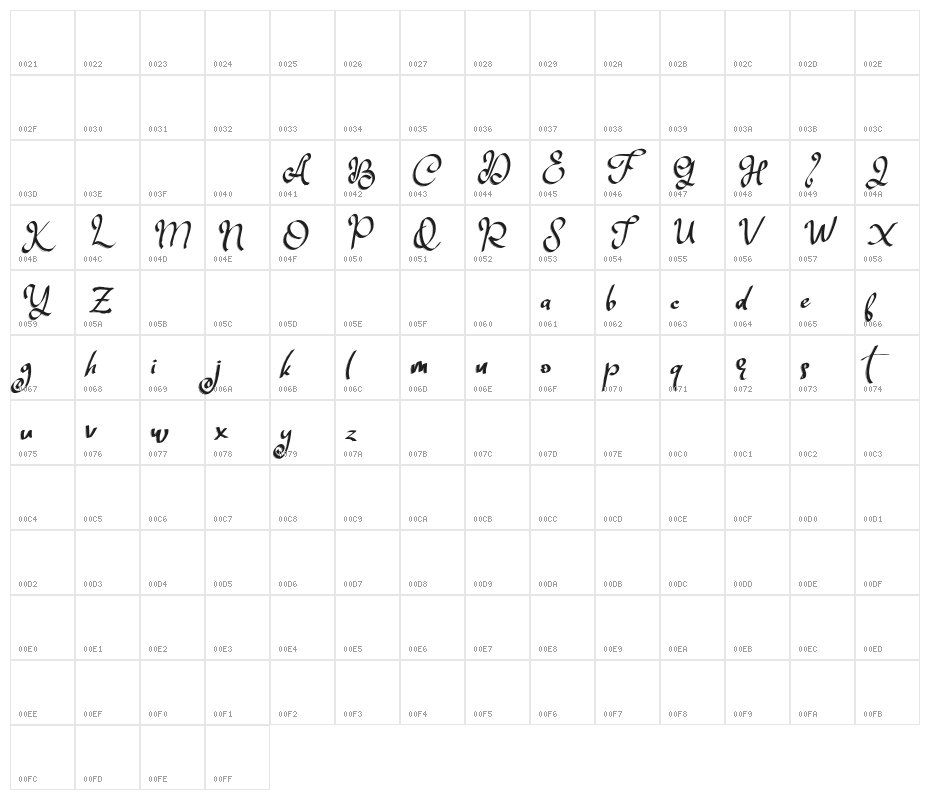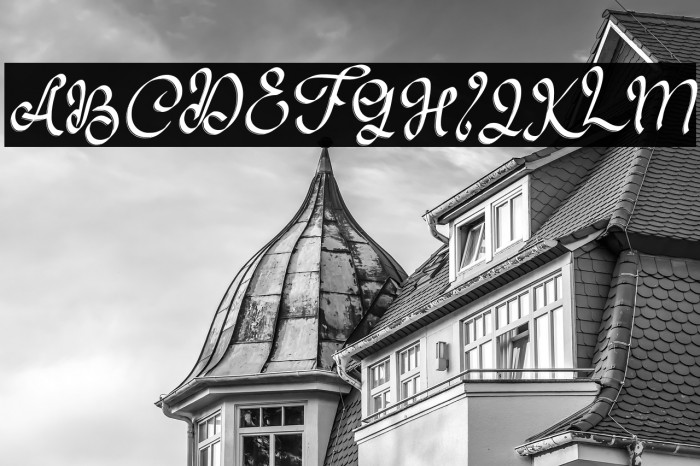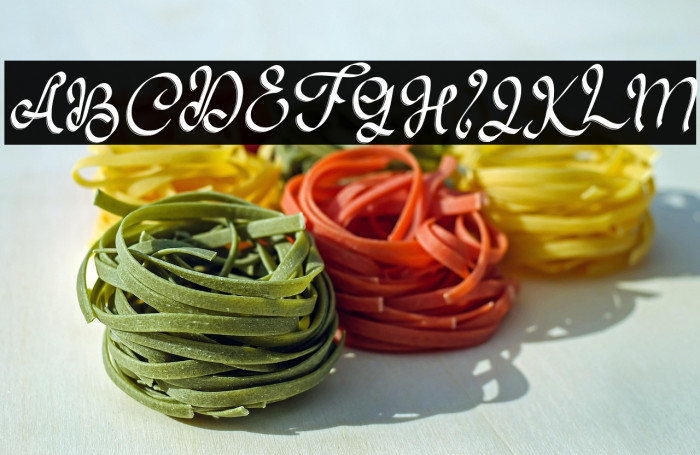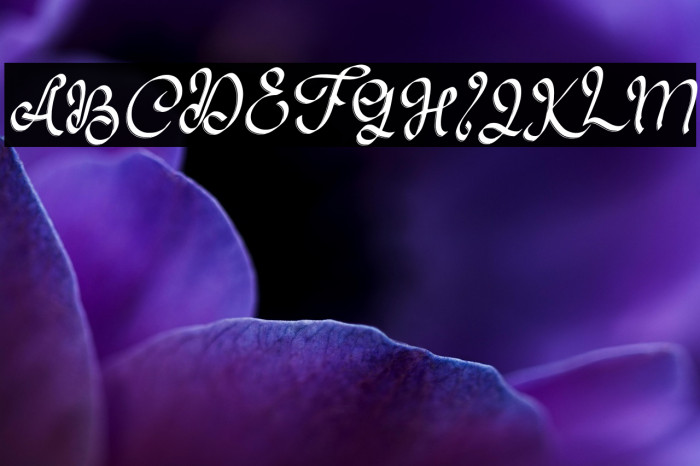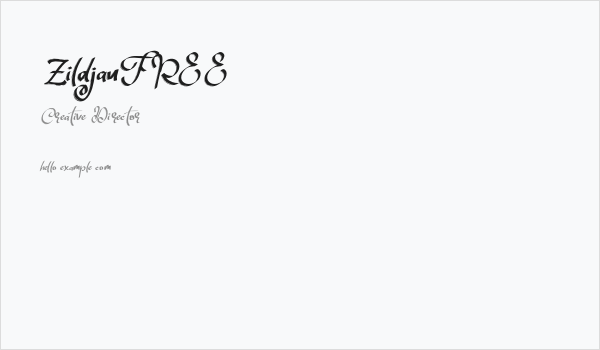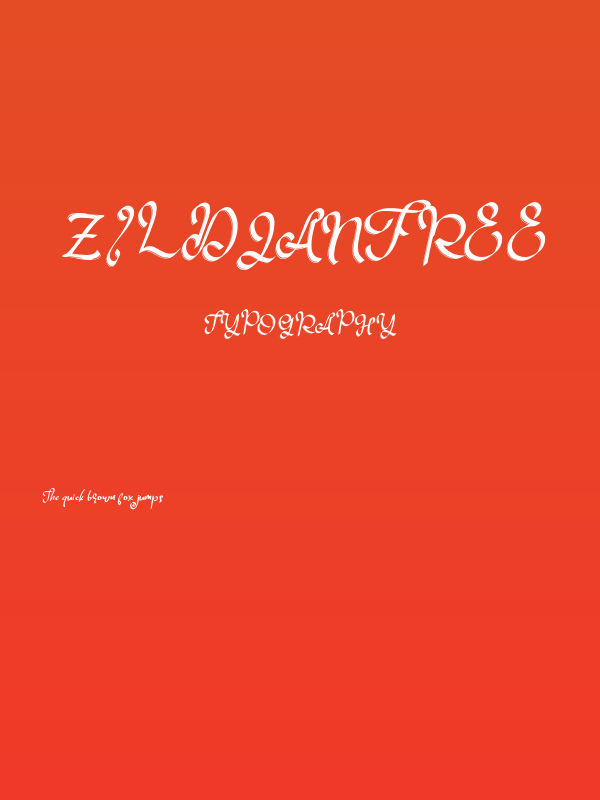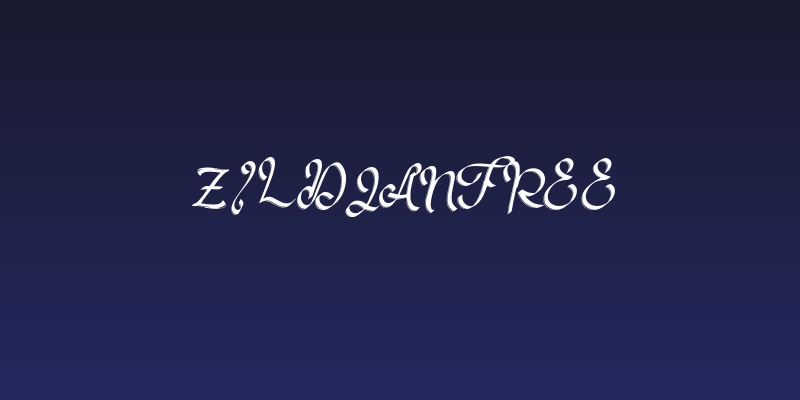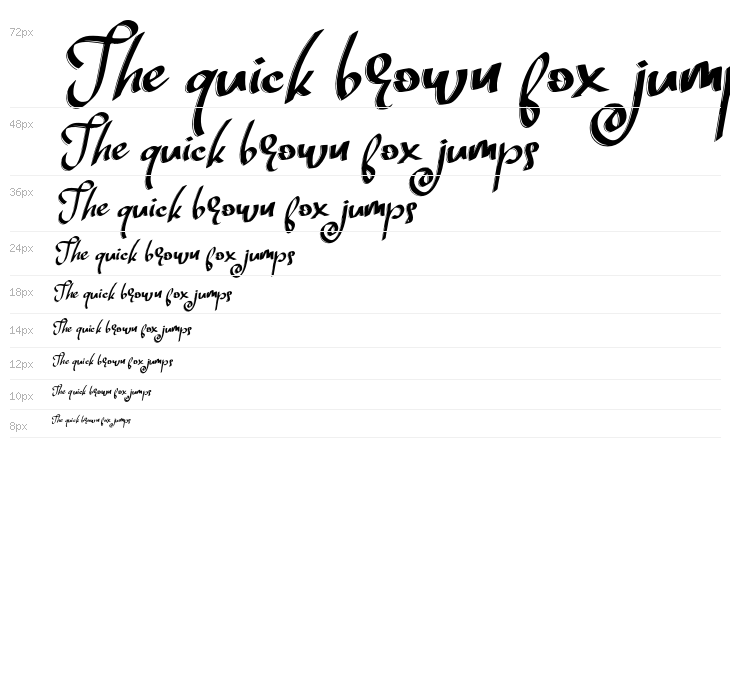
ZildjanFREE Font
ZildjanFREE Description
This font features an elegant and flowing script style, characterized by its cursive and decorative letterforms. The uppercase letters are ornate, with intricate loops and swirls that give a sense of movement and sophistication. The lowercase letters maintain a consistent style, with smooth, connected strokes that enhance readability while retaining an artistic flair. The numbers and special characters are designed to match the overall aesthetic, ensuring a cohesive look across all text. This font's unique style makes it suitable for creative and expressive design projects.
| Proposed Projects | Ideal for wedding invitations, greeting cards, logos, and branding materials that require a touch of elegance and sophistication. |